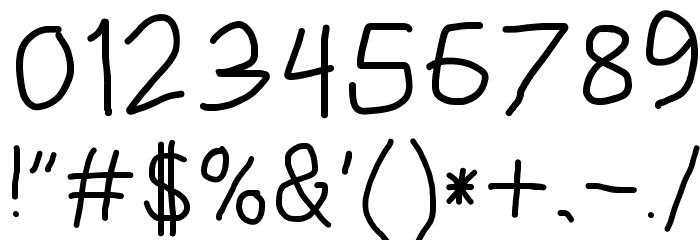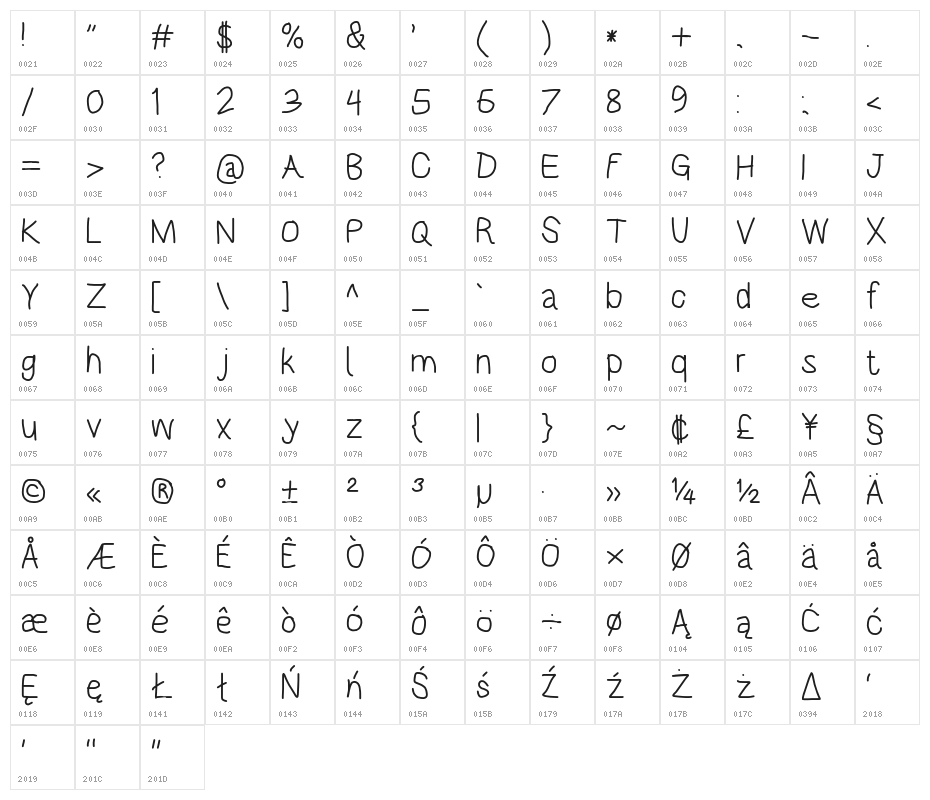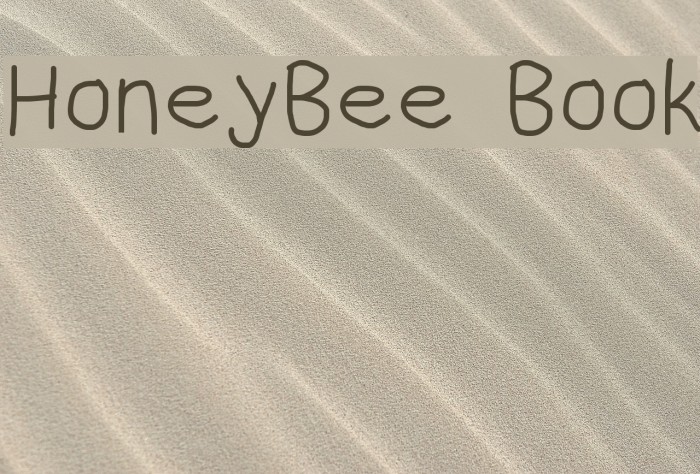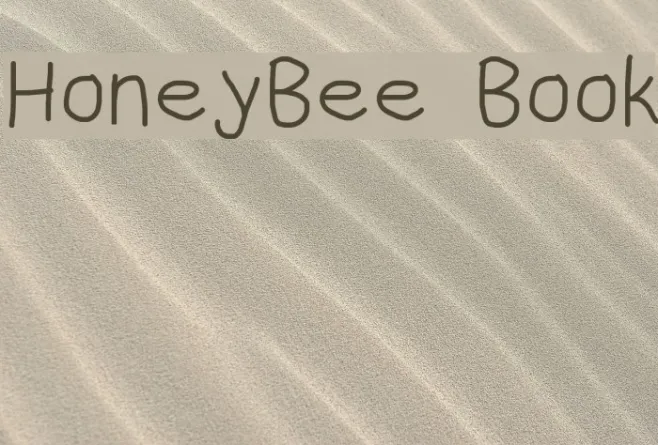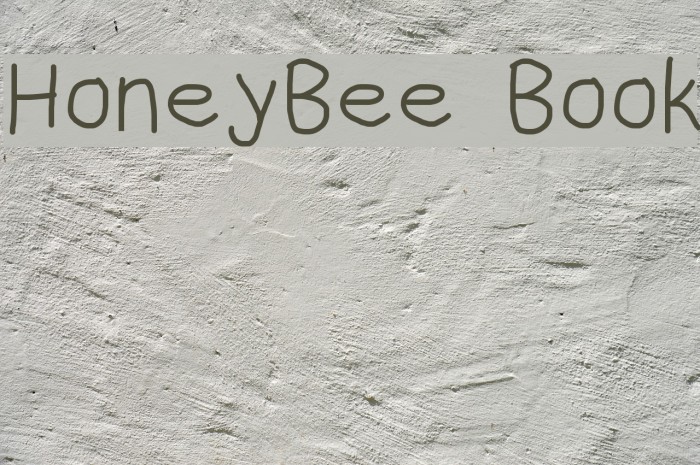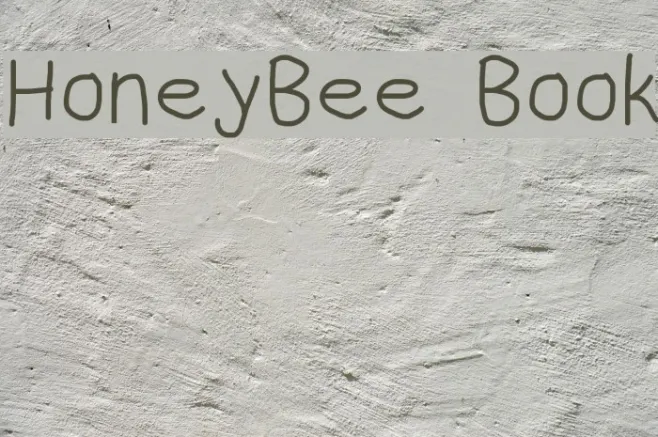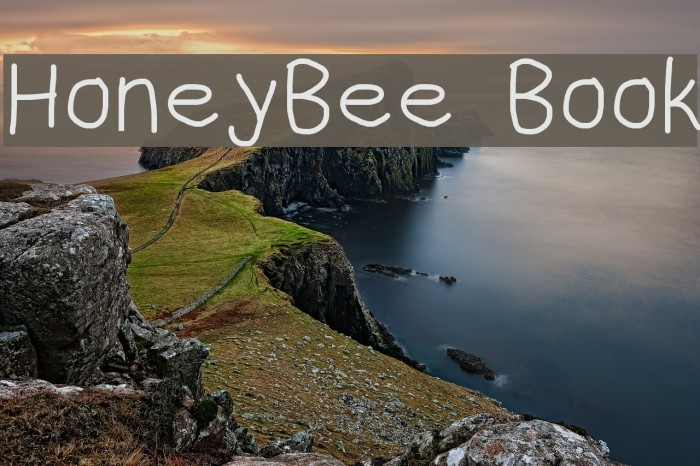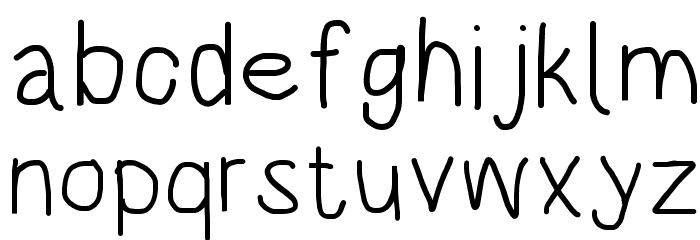
HoneyBee Book Font
HoneyBee Book Description
This font features a playful and informal handwritten style, characterized by its smooth, rounded strokes and slightly uneven baseline. The letters are crafted with a casual flair, giving them a friendly and approachable appearance. The uppercase and lowercase letters maintain a consistent style, with a slight slant that adds to the font's dynamic feel. Numbers and special characters are designed to match the overall aesthetic, ensuring a cohesive look across all text elements. The font's simplicity and charm make it suitable for a variety of creative projects.
| Proposed Projects | Ideal for children's books, greeting cards, playful branding, and informal invitations. |